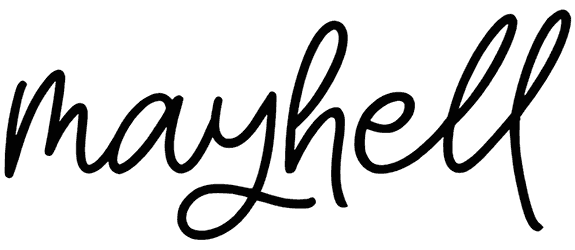
Mayhell Font
Welcome to a script font, Mayhell that comes with cursive design and smooth texture so it carries a sense of softness, precision, drama, and dreaminess. Due to its sophisticated flow, you might have difficulty reading this fast handwritten font‘s characters. Also, it would be perfect for posters, logos, online ads, billboards, and packaging.